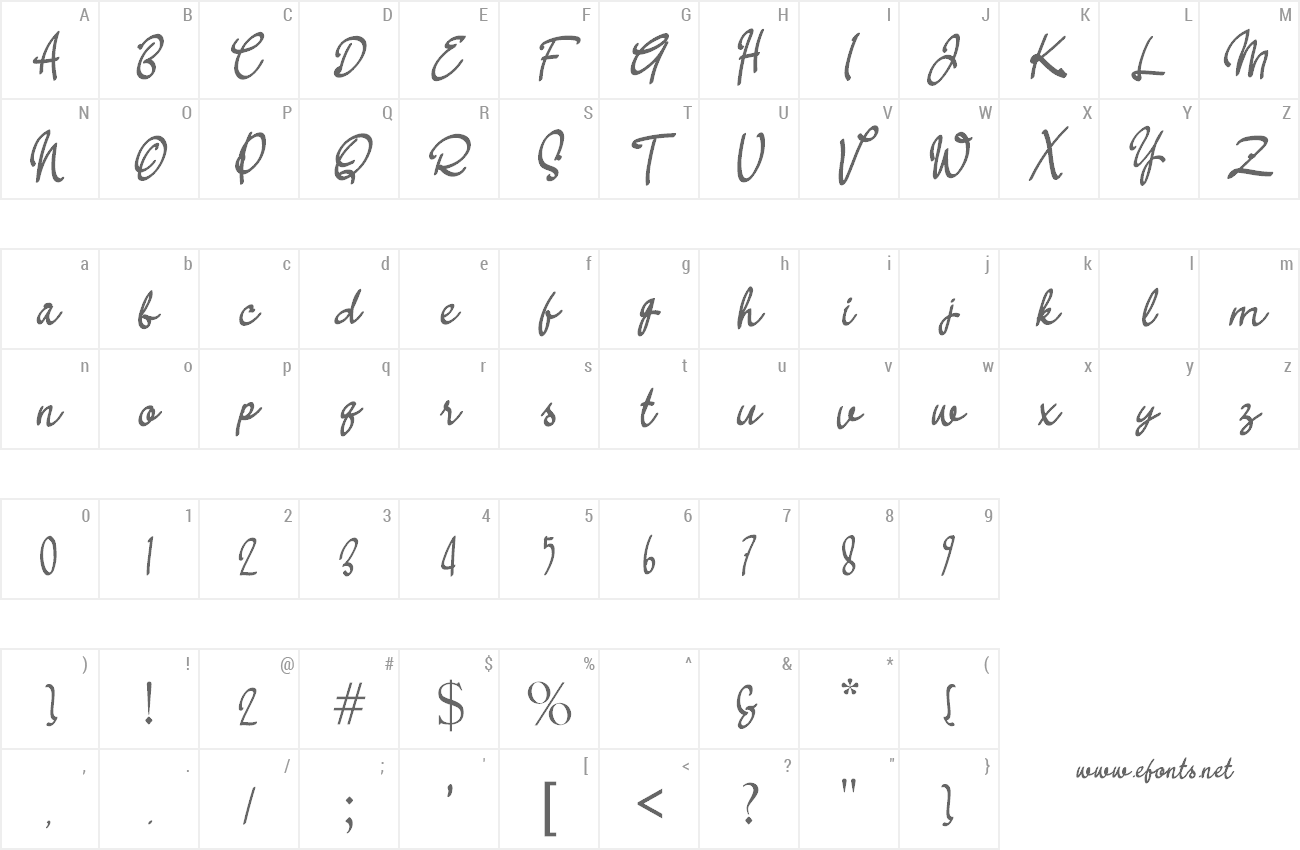
Preview and download Ra Bali Font. Created by Lemoncraft.s in Script Handwritten styles with 100% Free license.
....Yay ...! This is 100% free Ra Bali is a stylish, elegant and graceful Calligraphy Script font with Uppercase, Lowercase and Numeric and Punctuation sets that are quite complete, I create for you to download for Free. I really appreciate you if you want to support us to make the best work more, by donating to the Lemoncraft PayPal account: a_putera@yahoo.com thanks & Enjoy |